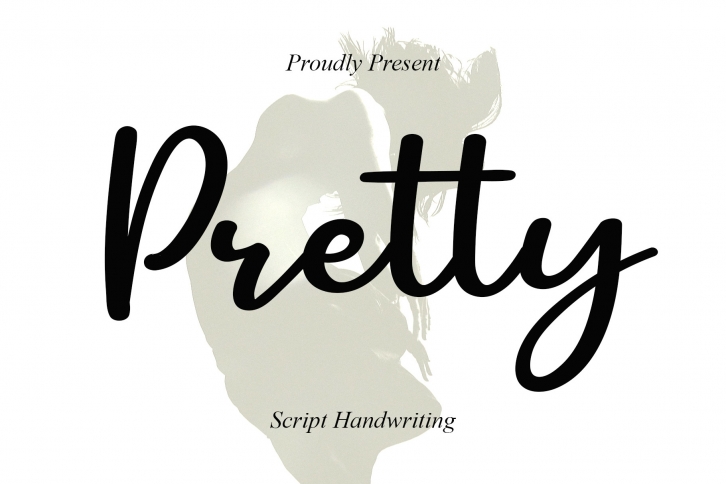
Pretty is a stylish and modern handwritten, suitable for a wide spectrum of applications. From greeting cards to headlines, branding, and packaging, this font will guarantee a lovely touch to each of your creations!